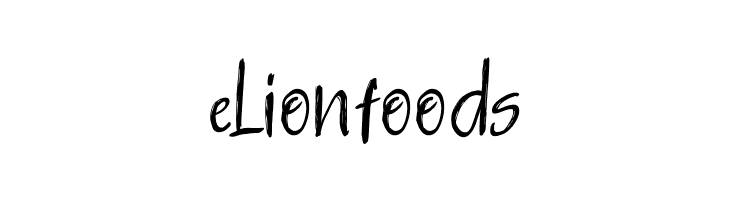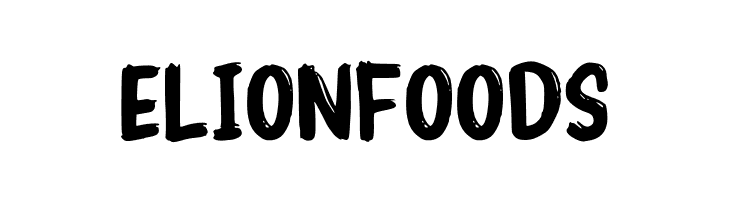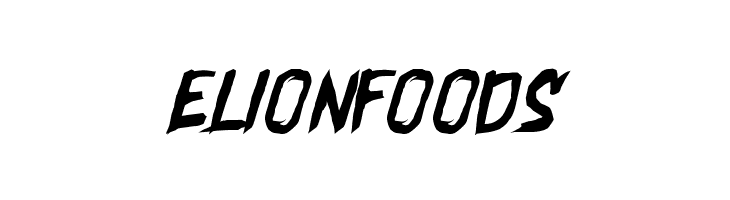
A decorative font with spider motifs, ideal for Halloween themes.
Halloween-themed dingbat font with bold, spooky icons.
Halloween icon dingbat font with spooky illustrations.
A dynamic, handwritten script with expressive, fluid strokes.
A bold, spooky font with a blocky, eerie design ideal for Halloween themes.
A decorative Halloween-themed font with playful and spooky illustrations.
A bold, three-dimensional font with a shadow effect, offering a modern and dynamic look.
A bold, 3D-effect font with clean lines and a modern aesthetic.
A decorative font with spider and web motifs, perfect for Halloween themes.
A playful, handwritten font with a youthful and whimsical style.
A playful, casual handwritten font with a natural, informal style.
A casual, handwritten font with bold, dynamic strokes and a playful style.
A whimsical, sketchy font with decorative swirls and flourishes.
A playful, casual handwritten font with fluid strokes.
A spooky, playful font with jagged, uneven letters ideal for Halloween themes.
A bold, dripping font perfect for spooky or Halloween-themed designs.
A bold, dripping font ideal for horror and Halloween themes.
A modern, rounded font with a futuristic and geometric style.
A classic serif typeface with elegant proportions and moderate contrast.
A classic serif typeface with moderate contrast and elegant proportions.
A classic serif font with elegant curves and moderate contrast, ideal for traditional and sophisticated designs.
A classic italic serif font with elegant, flowing lines and moderate stroke contrast.
A bold, high-contrast serif font with a classic and authoritative style.
A dynamic, expressive handwritten font with fluid strokes and artistic flair.
A dynamic and expressive handwritten font with fluid, organic strokes.
A bold, hand-drawn font with playful and irregular strokes.
An ornate, vintage-style font with intricate flourishes and bold, decorative elements.